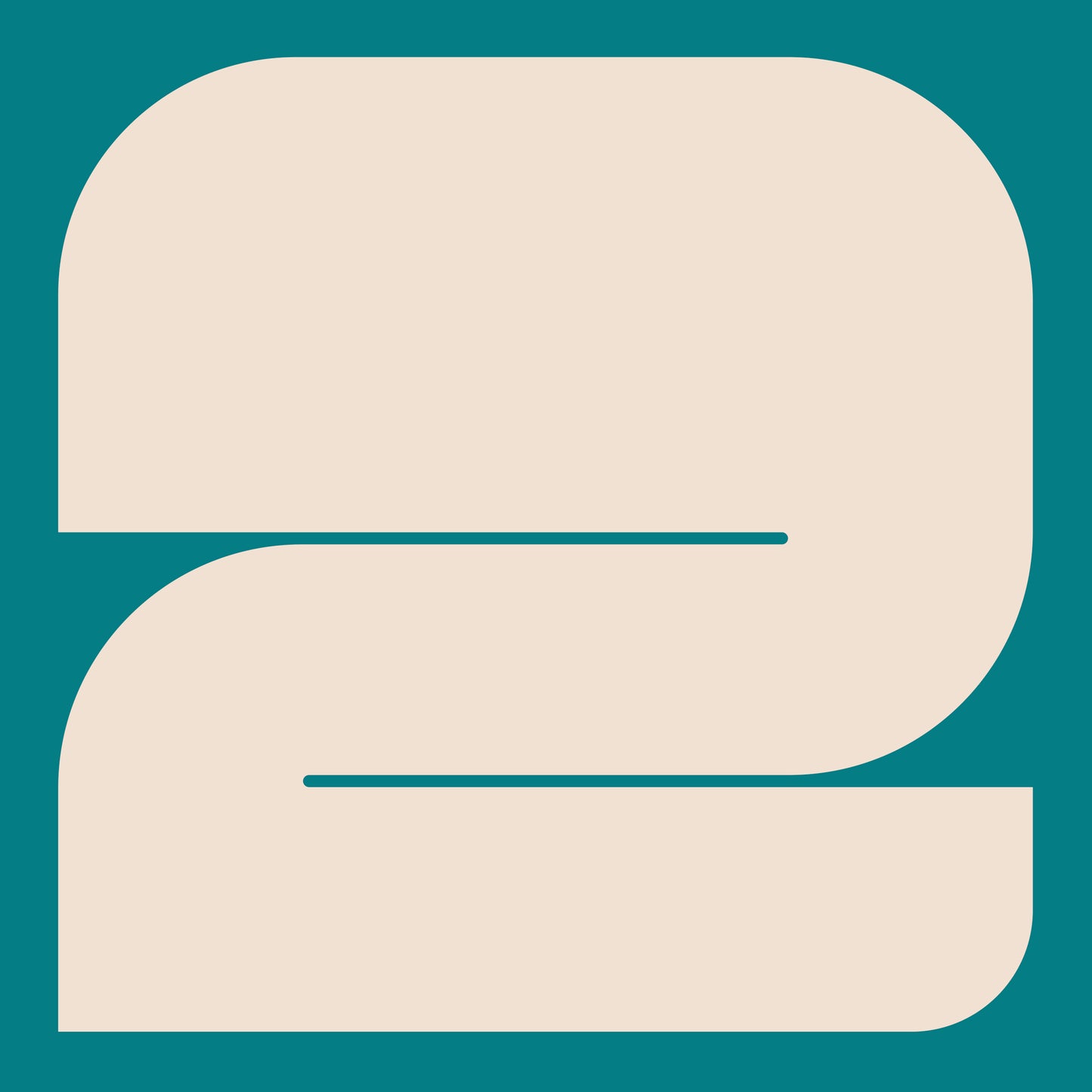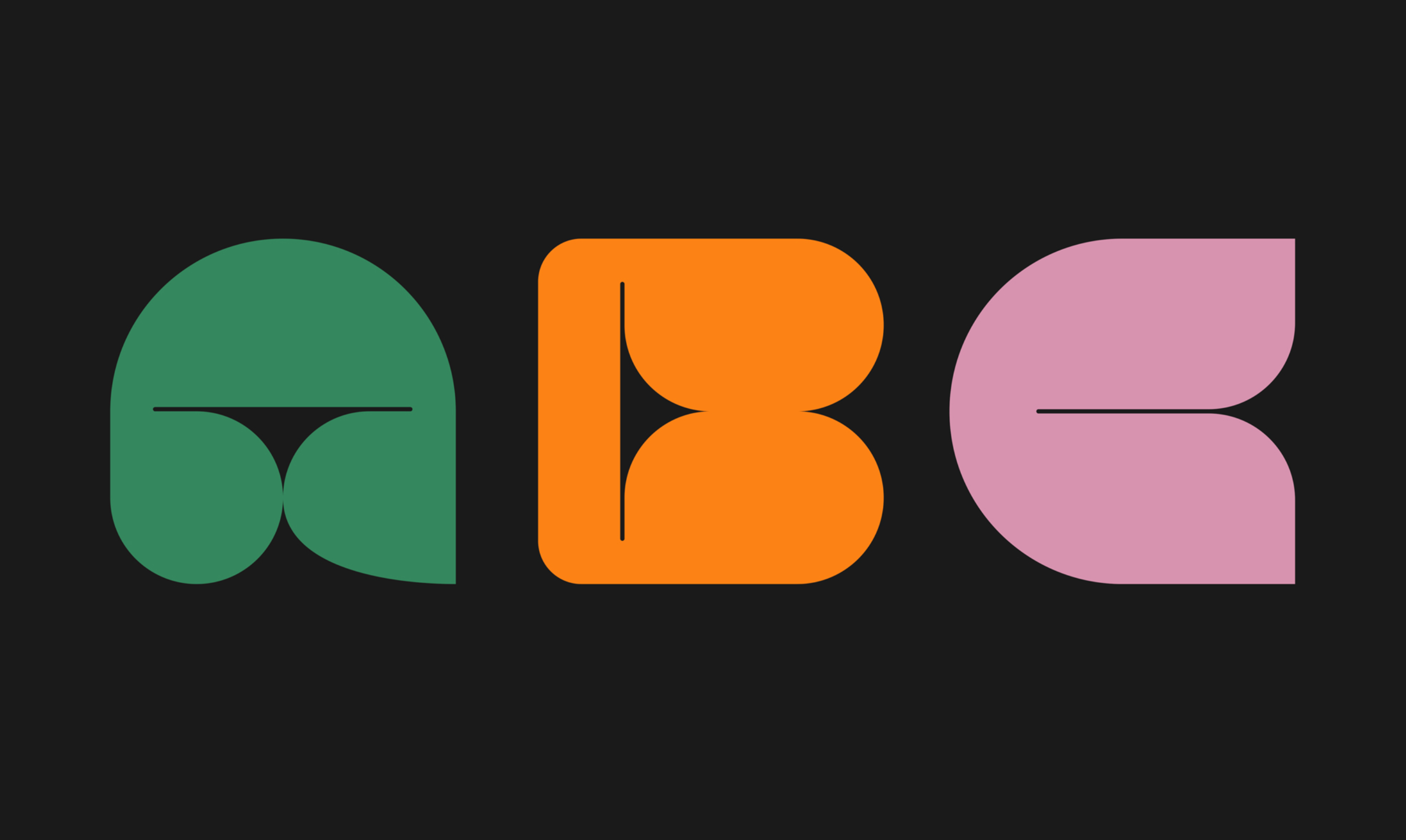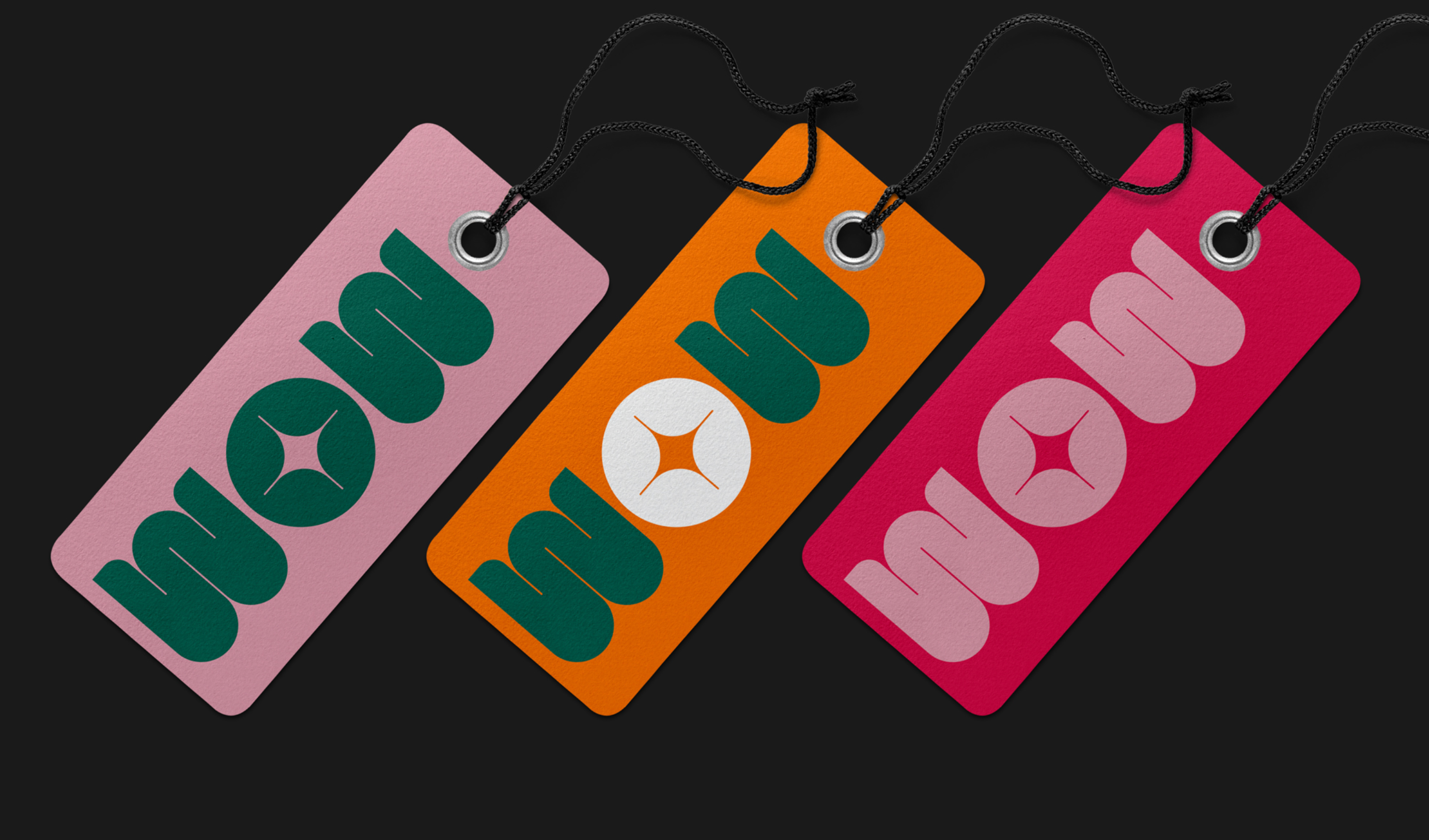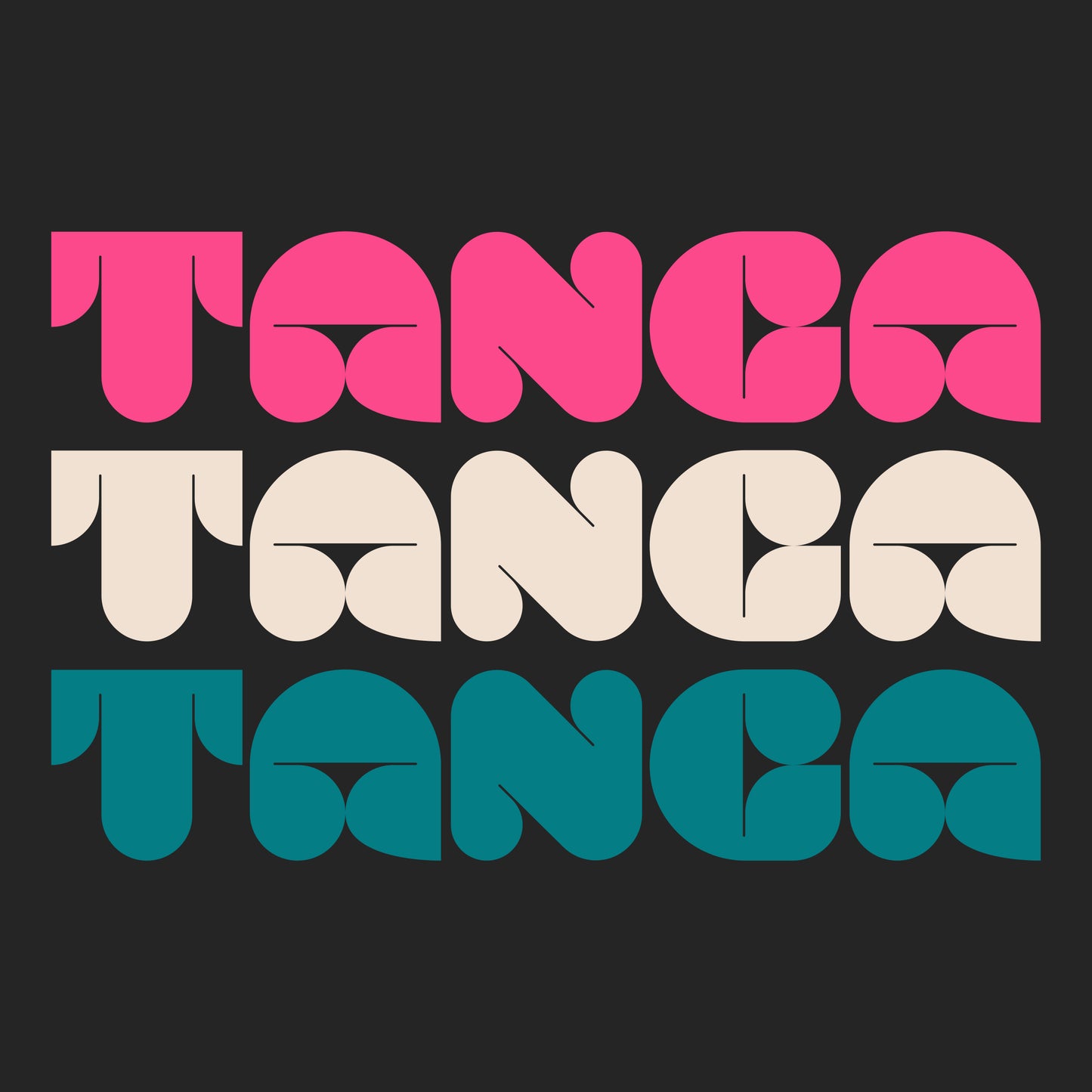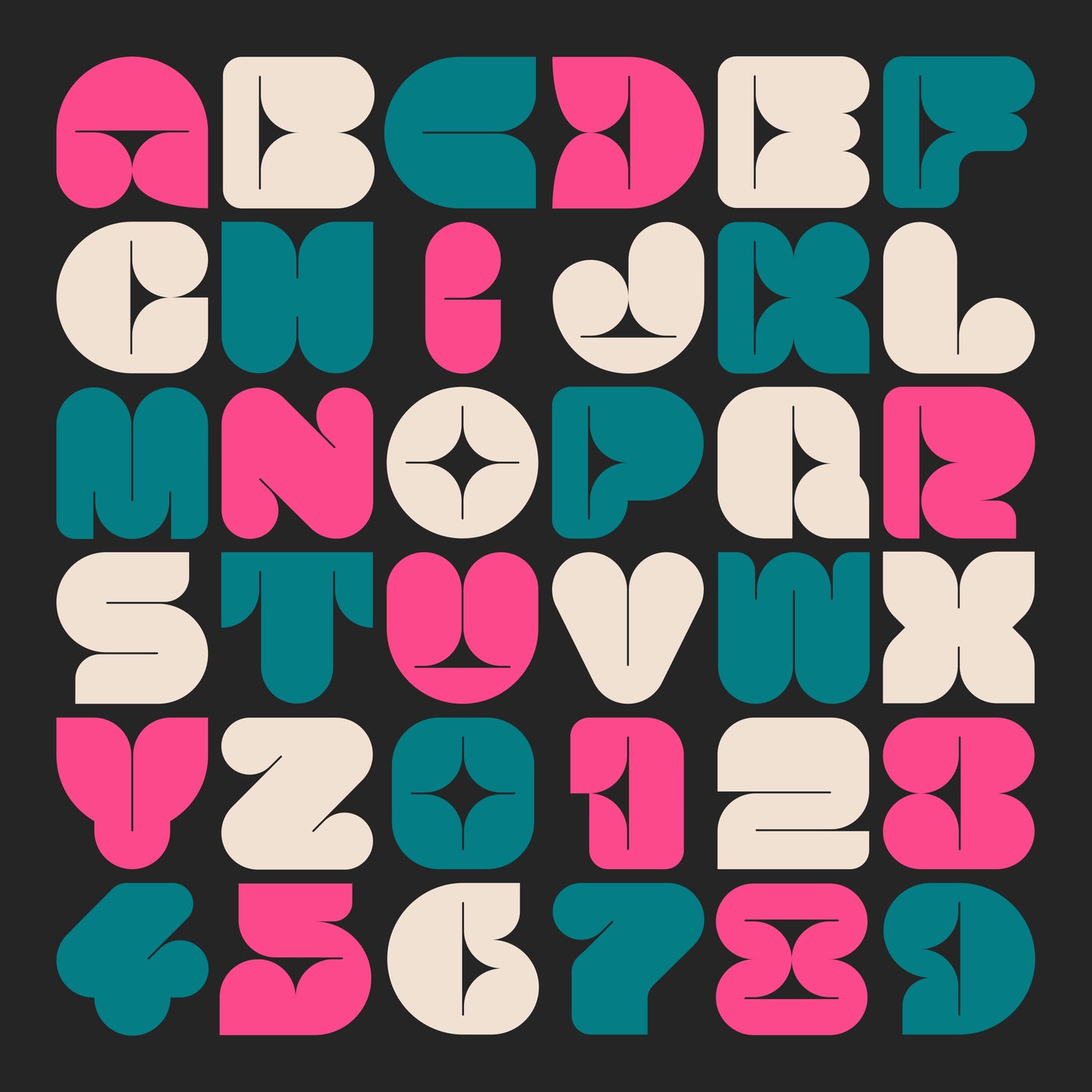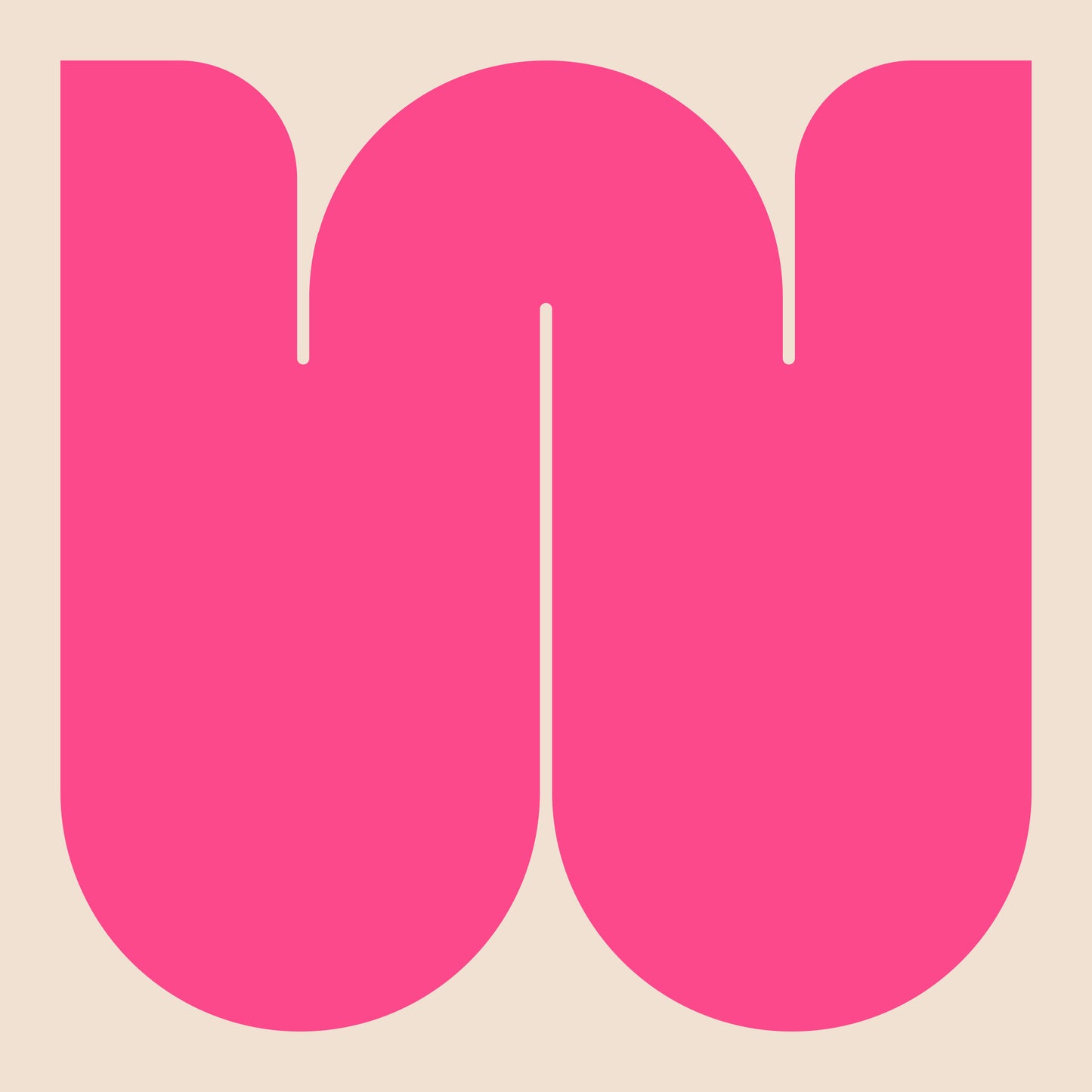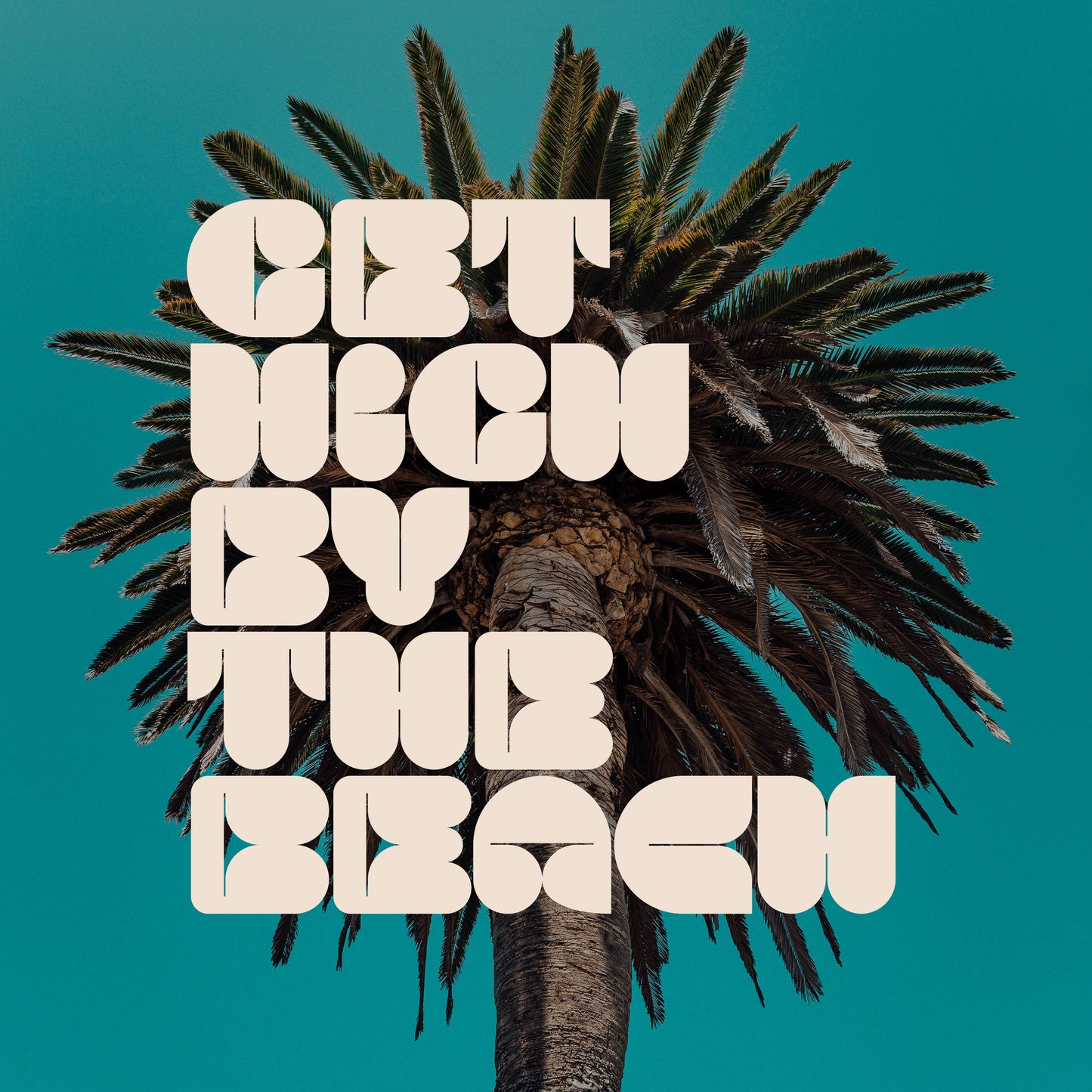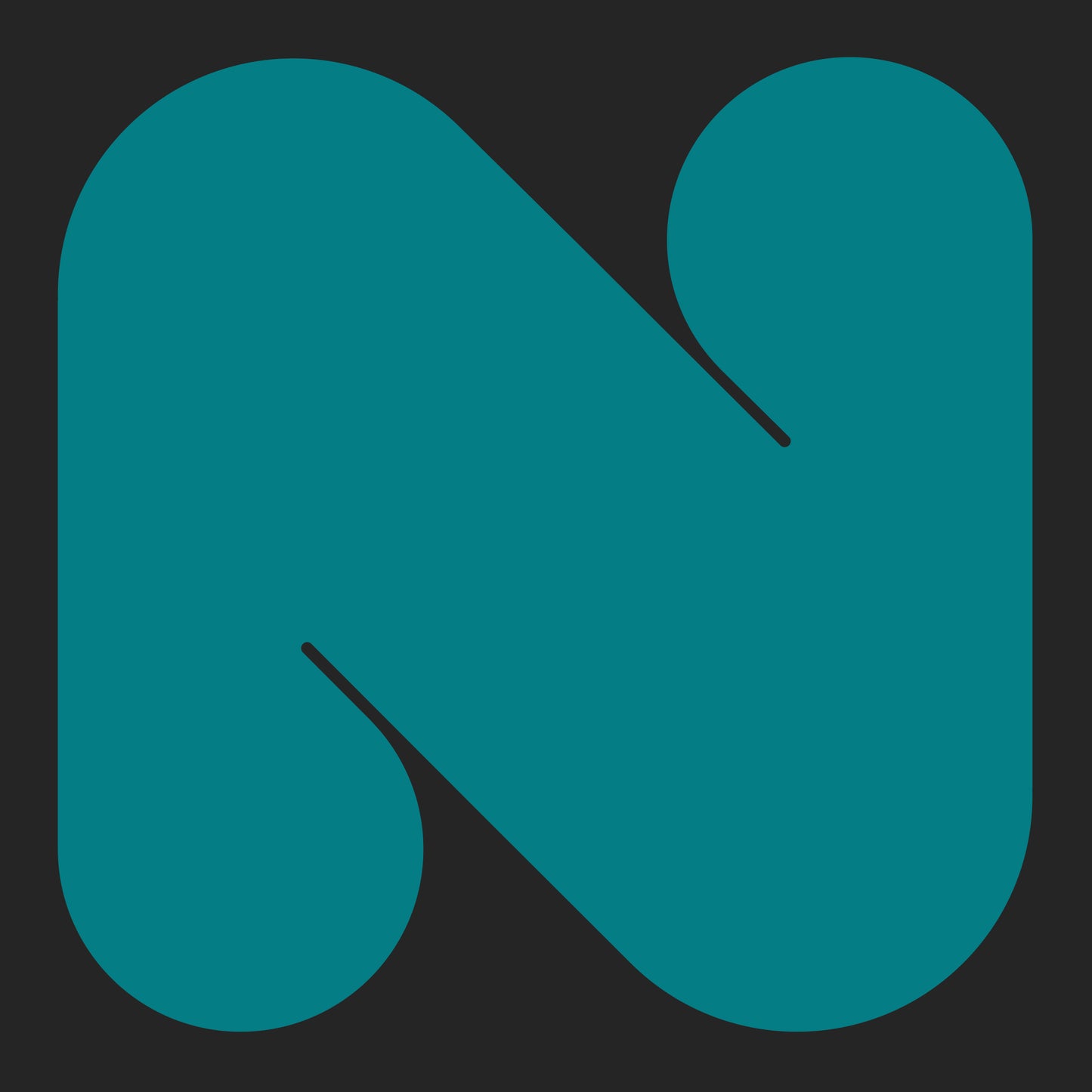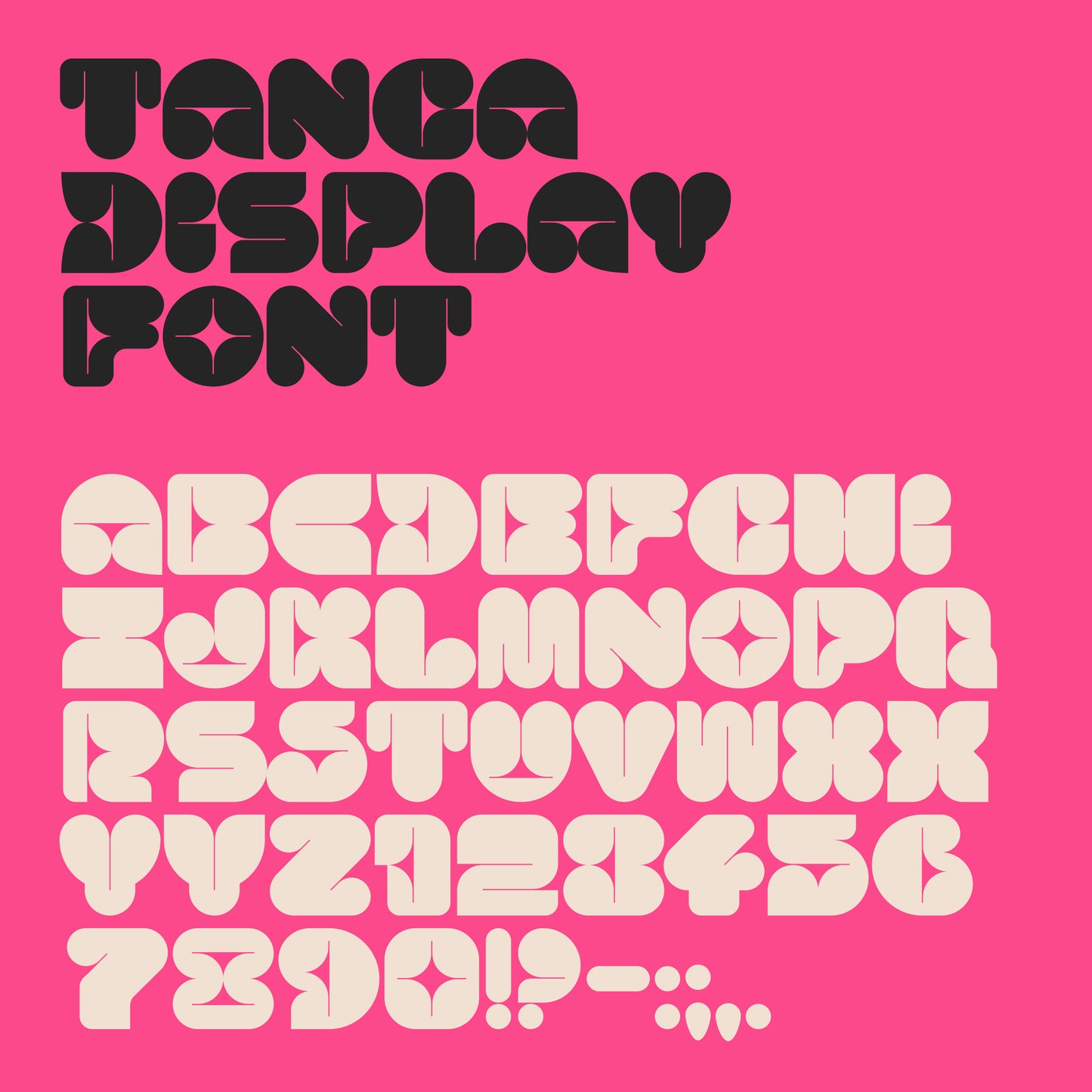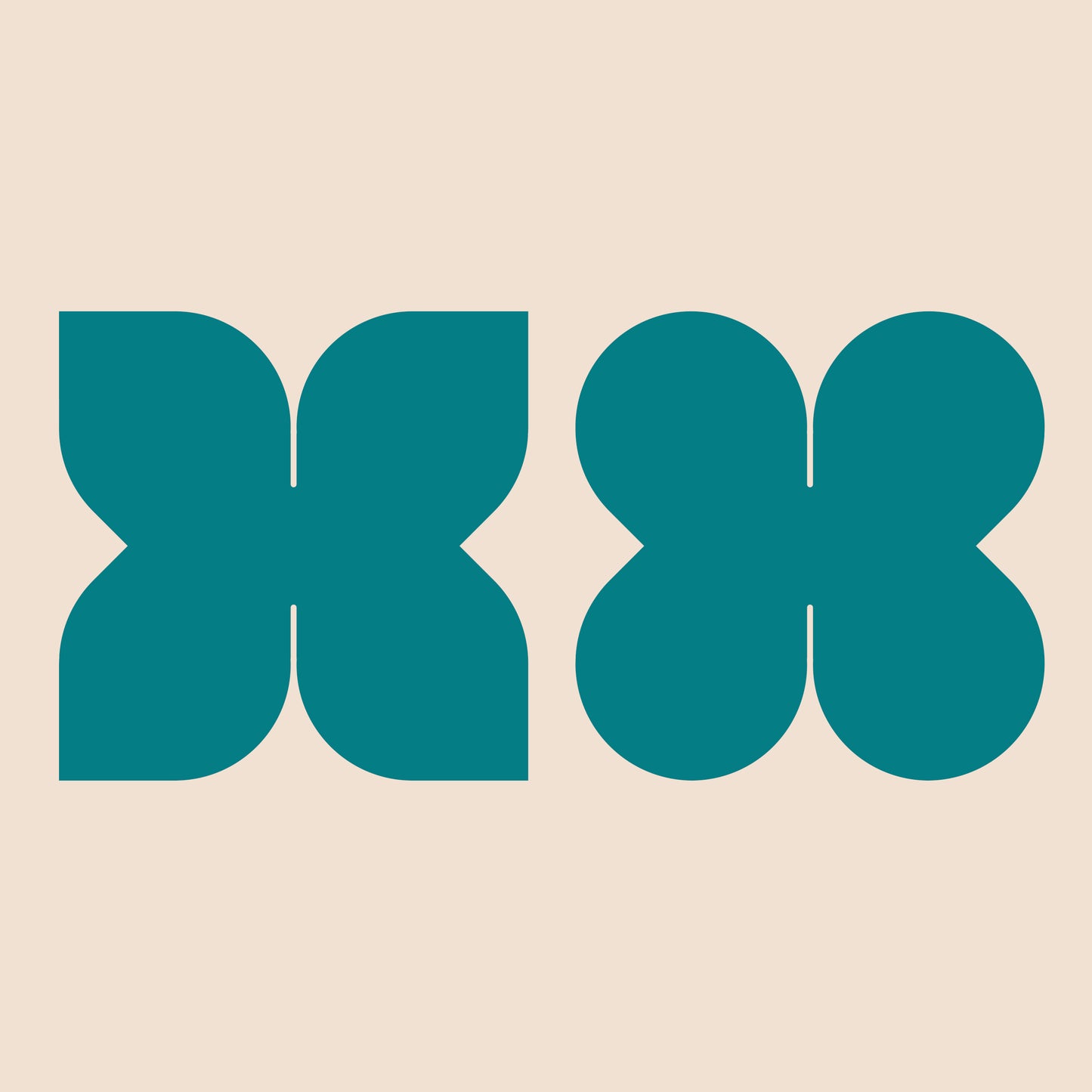
Tanga
Tanga is a spirited uppercase display font that channels the vibrant energy of tropical patterns, bikini designs, and Hawaiian shirts. Its curvaceous letterforms are complemented by sharp negative spaces, resulting in a playful and dynamic font perfect for eye-catching headlines, modern poster designs, and distinctive logos.